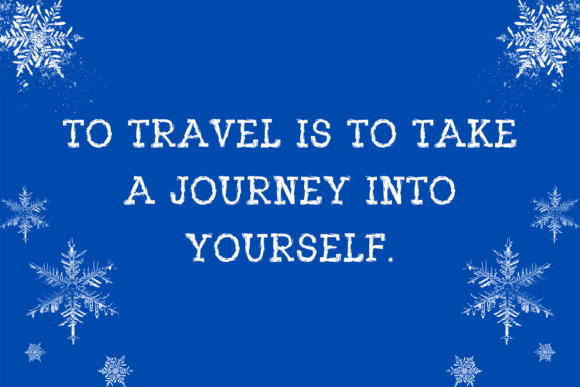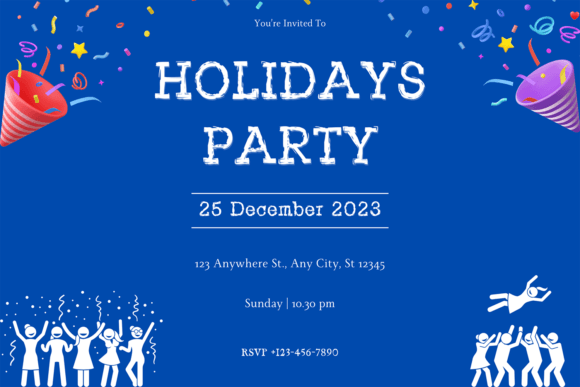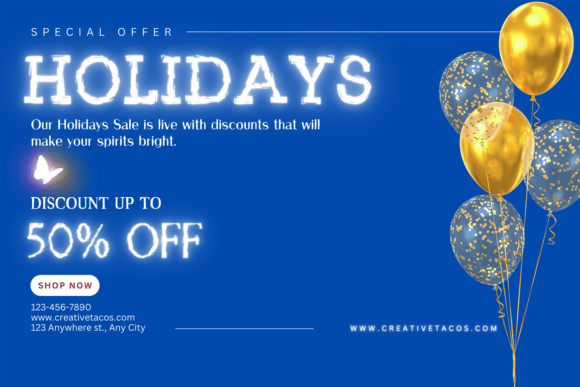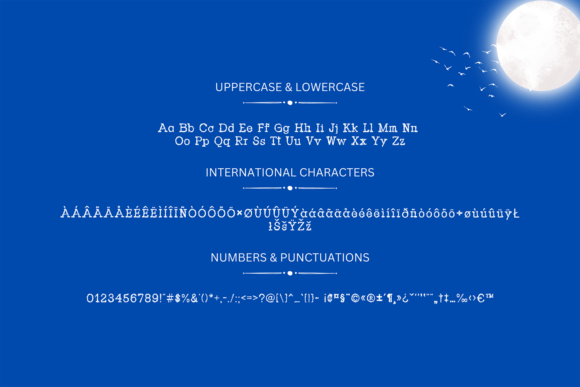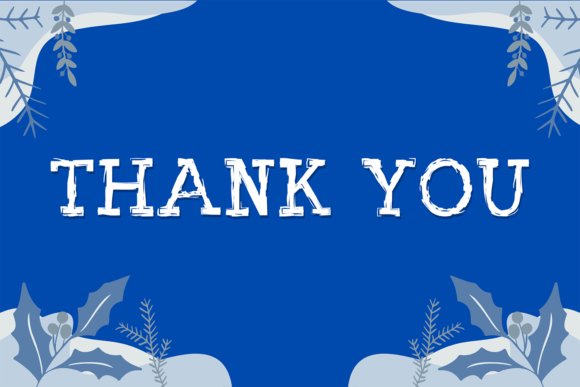
Introduction to Jaani Font Font
Fonts play a crucial role in design, and the Jaani Font font is a typeface that brings both character and versatility to any project. Whether you’re working on a branding project, a website, or a print design, the Jaani Font font offers a unique style that can elevate your work.
Jaani Holidays Font is a must-have for those who want to add a touch of elegance and creativity to their holiday-themed projects to take them to the next level.
It includes uppercase, lowercase, numbers, punctuation, and symbols, and with Latin extended character support, itβs versatile for a variety of creative endeavors while exuding a rustic charm This Jaani font is specifically designed to capture the spirit of joy and celebration, making it an ideal choice for creating stunning holiday invitations, greeting cards, packaging, slideshows, logos, headlines, posters, branding, headlines, magazine layouts, website designs, advertising, invitations, packaging designs, book covers, and other festive designs.
Key Features of Jaani Font Font
Why Choose Jaani Font Font?
The Jaani Font font is more than just a typeface β it’s a design tool that helps you communicate your message with style and clarity. Its unique character set and versatile design make it suitable for a wide range of applications, from elegant invitations to bold headlines.
With its carefully crafted letterforms and balanced proportions, the Jaani Font font ensures readability and visual appeal across all mediums.
What makes Jaani Font font special?
The Jaani Font font stands out with its unique design, exceptional readability, and versatility across various design applications.